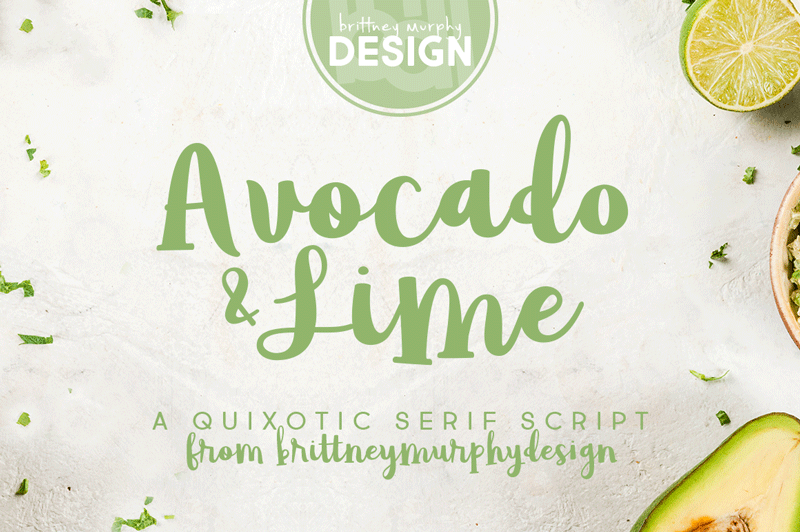
Avocado & Lime
Brittney Murphy Design
Script
Avocado & Lime is a bold and quixotic serif script. Includes open type ligatures stylistic & contextual alternates and swashes.